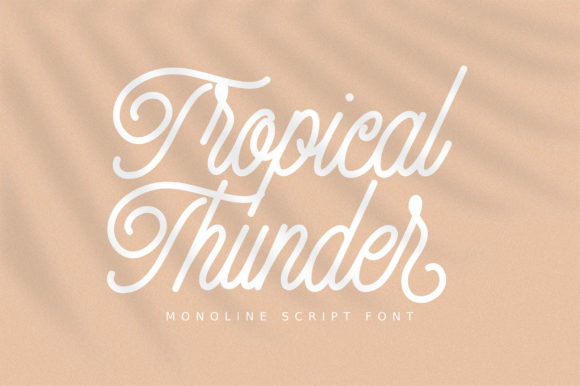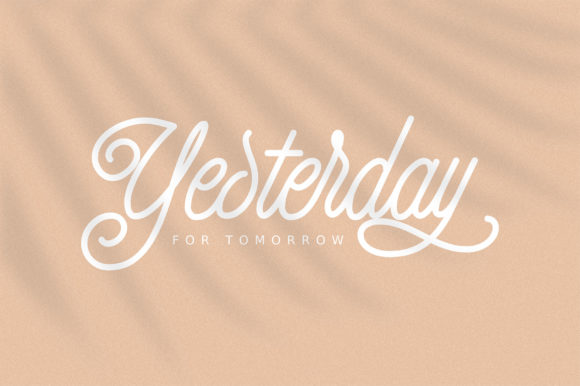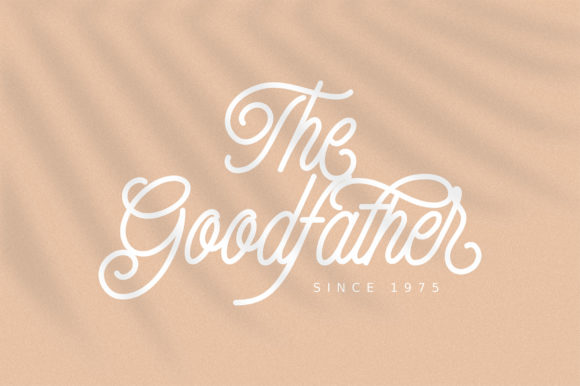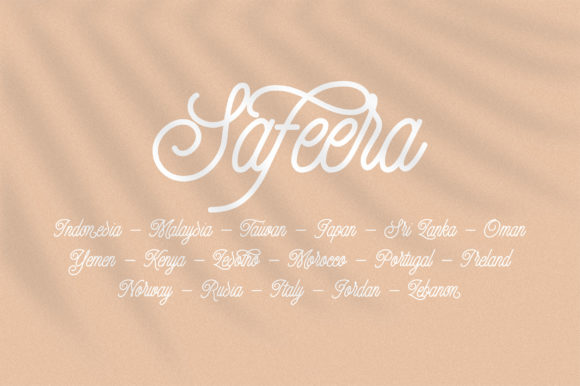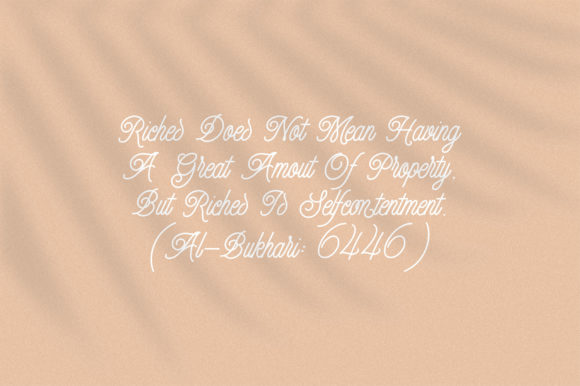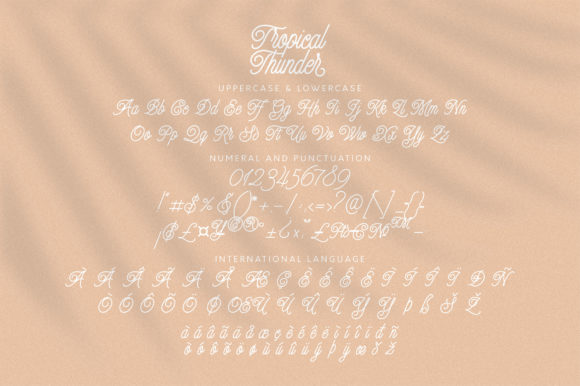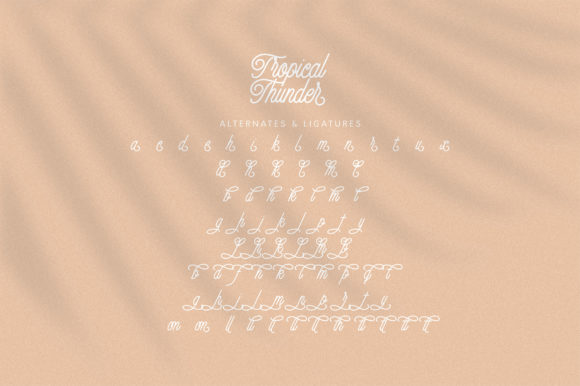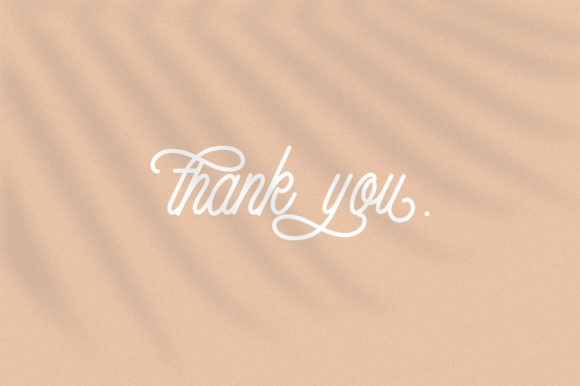
Tropical Thunder Font
About Tropical Thunder Font
Tropical Thunder is an elegant and flowing handwritten font. It is PUA encoded which means you can access all of the glyphs and swashes with ease! It features a varying baseline, smooth lines, gorgeous glyphs and stunning alternates. It maintains its classy calligraphic influences while feeling contemporary and fresh. Fall in love with Tropical Thunder and bring your projects to the highest levels!